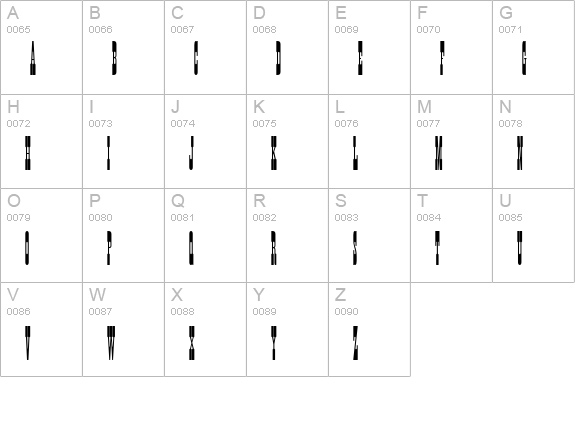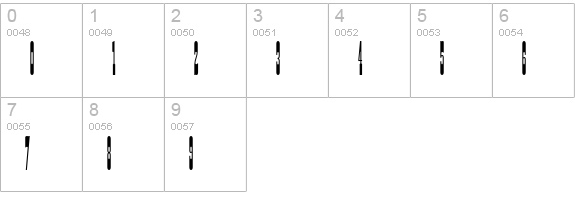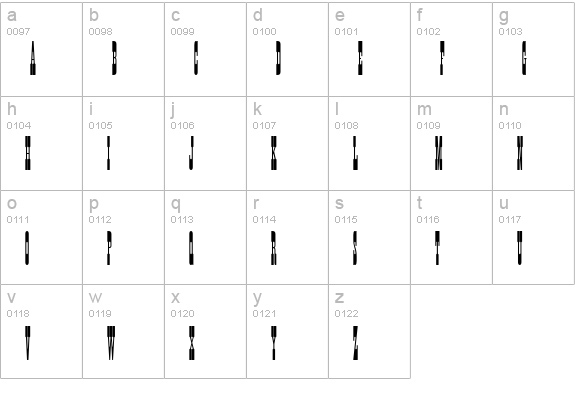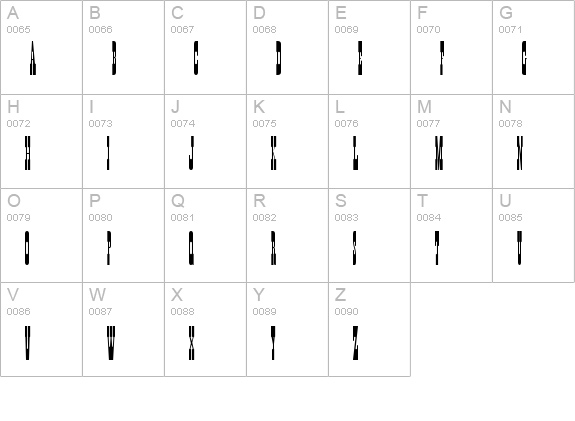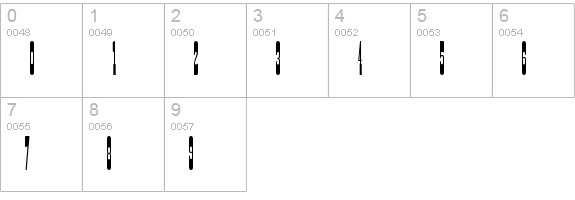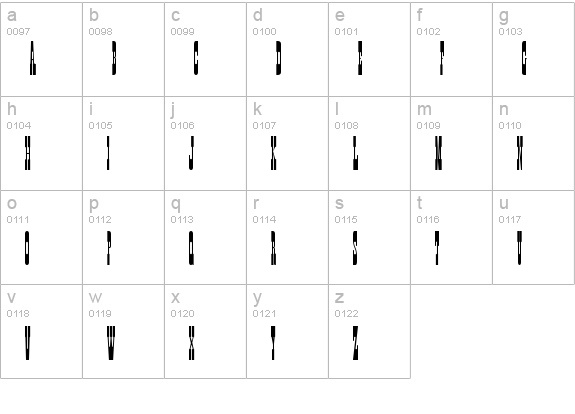
Ponderosa Font Details
Ponderosa font is a stunning and versatile typeface that exudes elegance and sophistication. With its timeless design and refined characteristics, Ponderosa font is perfect for a wide range of creative projects, from branding to editorial design. Its clean lines and classic appeal make it a go-to choice for designers looking to add a touch of class to their work. What sets Ponderosa font apart is not just its beauty, but also its accessibility. This premium font is available for free download at FontsMarket.com, allowing designers to easily access and utilize it in their projects without any cost. Whether you're working on a personal project or a professional design, Ponderosa font is sure to elevate your work and leave a lasting impression. Download it now and see for yourself the impact this exquisite font can have on your designs.